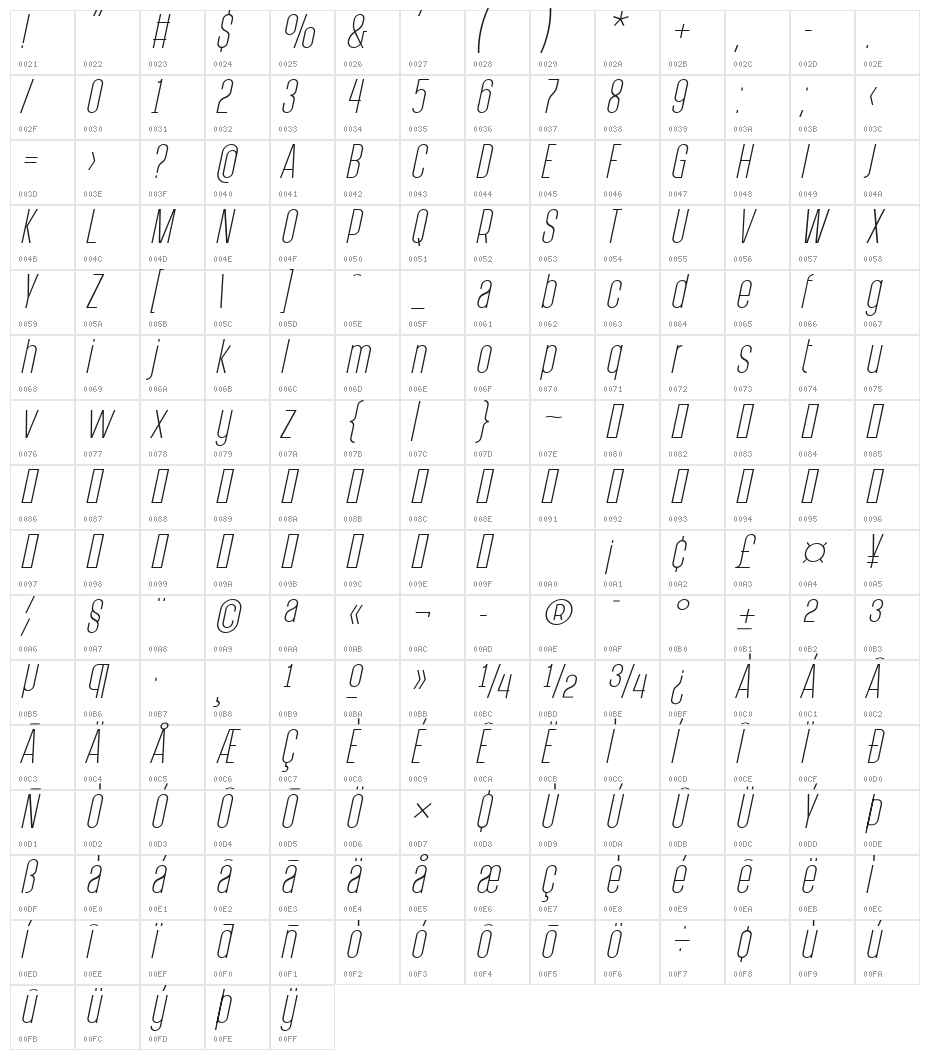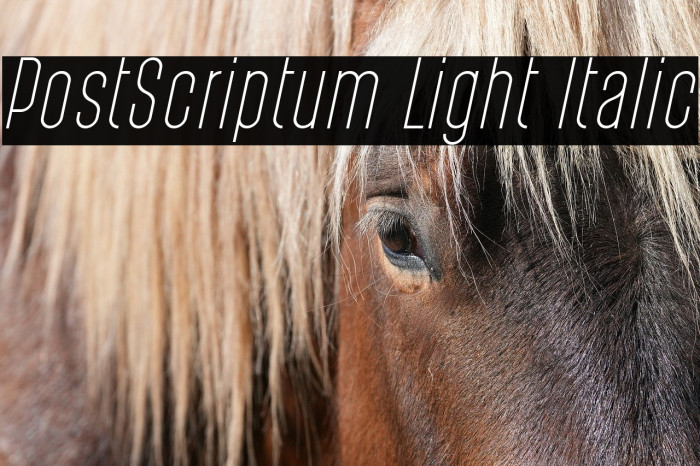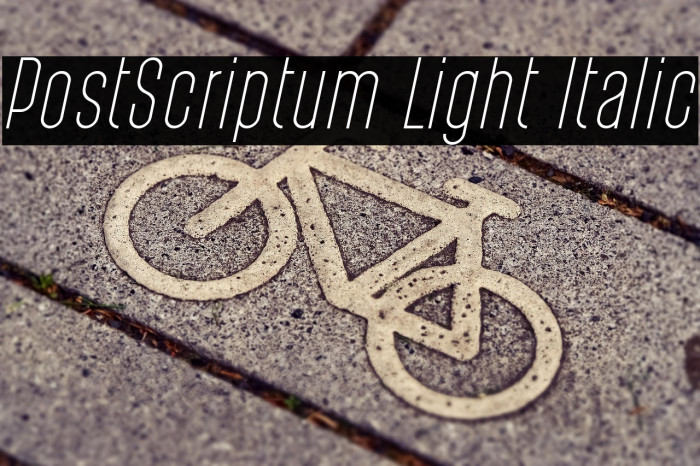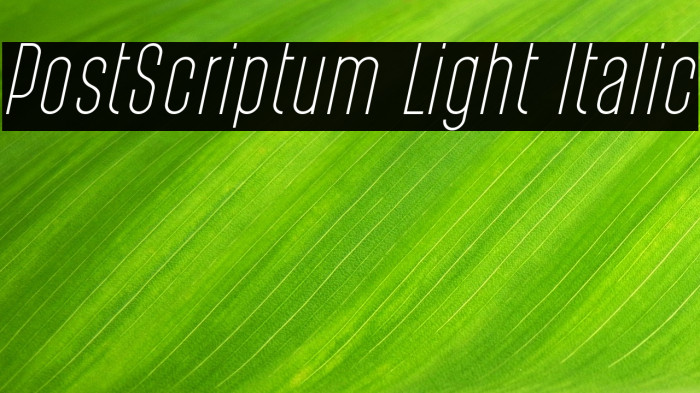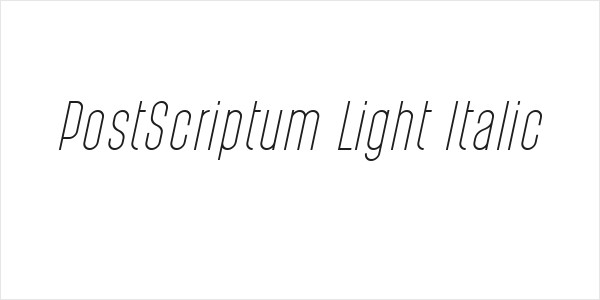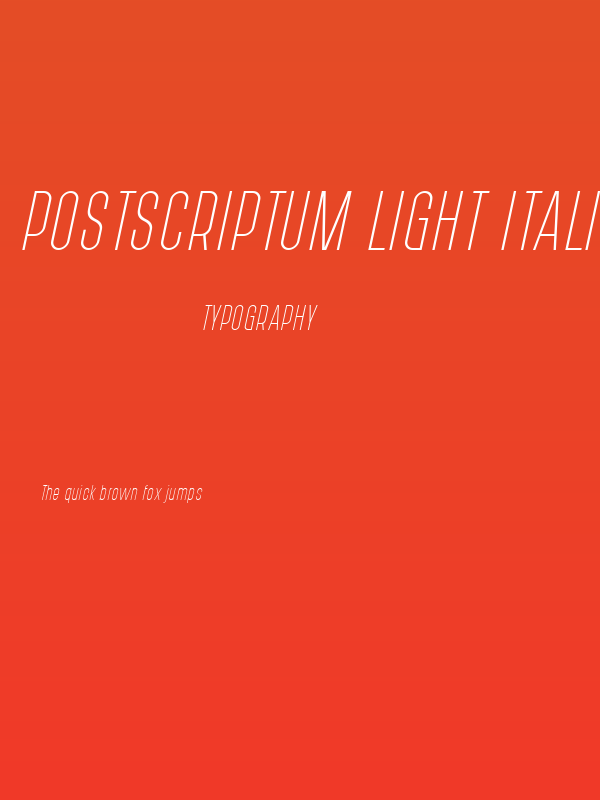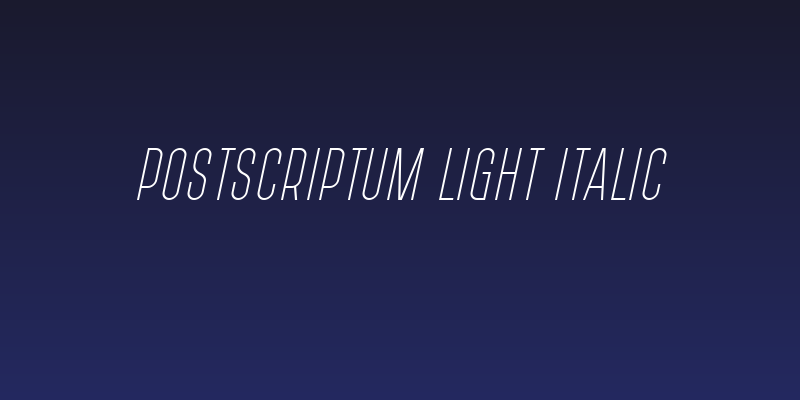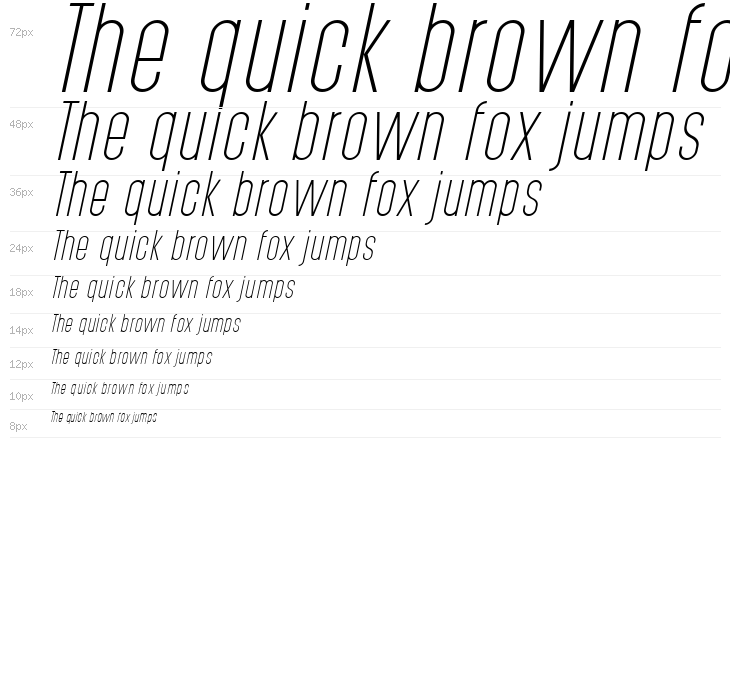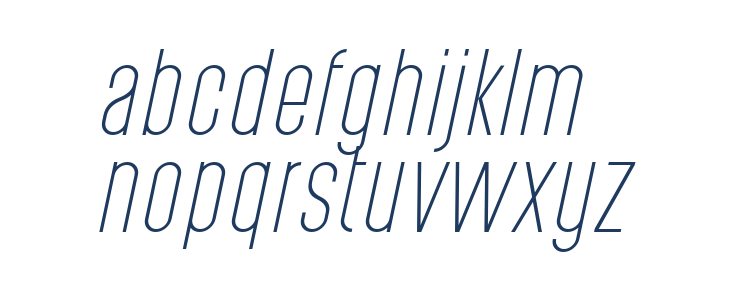
PostScriptum Light Italic Font
PostScriptum Light Italic Description
This font features a sleek and modern design with a light weight and italic style. The characters are elongated and slightly condensed, giving it a sophisticated and elegant appearance. The strokes are thin, contributing to a high contrast between the characters and the background. The font maintains a consistent slant throughout, enhancing its dynamic and fluid look. It is well-suited for projects that require a contemporary and stylish touch, such as fashion magazines, luxury branding, and high-end product packaging. The spacing between characters is normal, ensuring readability while maintaining its chic aesthetic.
| Proposed Projects | Ideal for fashion magazines, luxury branding, high-end product packaging, and modern editorial design. |